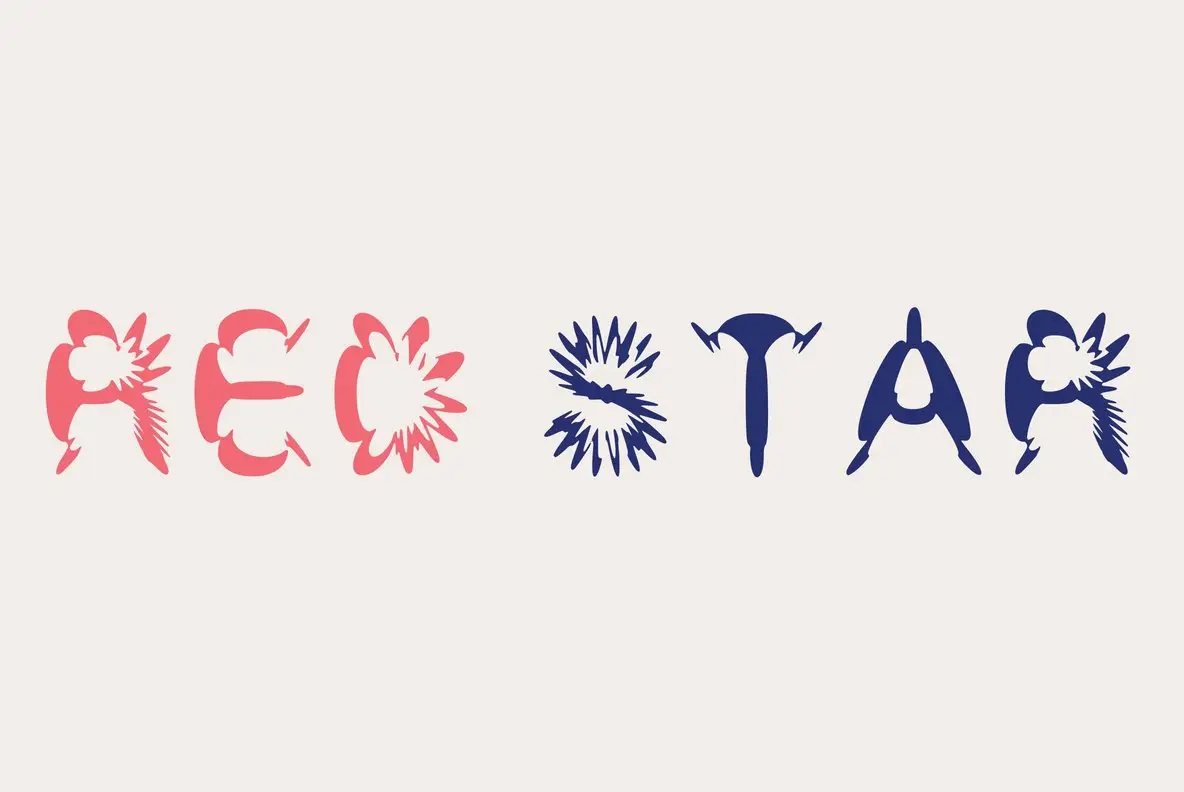
Alien Zoo Font Fontpath
Alien Zoo Font Fontpath Alien zoo font, a blend of lost history and sci fi appeal. perfect for design that defies convention. Looking for alien fonts? click to find the best 374 free fonts in the alien style. every font is free to download!.